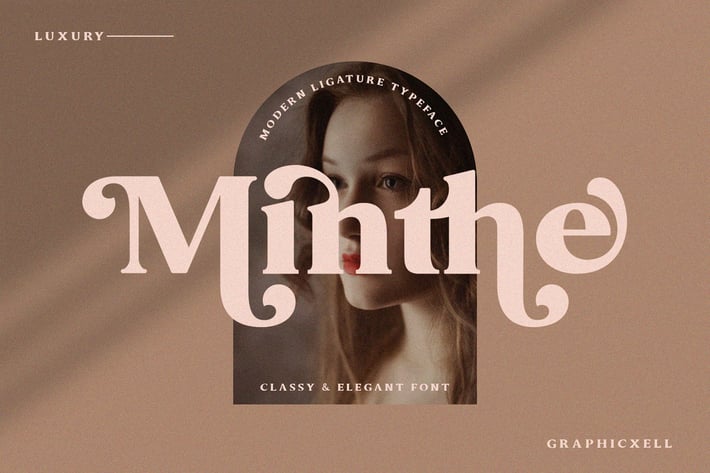
Minthe - Serif Font
Minthe Serif is a refined serif font that combines classic charm with modern style. Its clean lines and sharp details make it perfect for projects that need a touch of elegance and sophistication. Whether you use it for branding, editorial work, or packaging, Minthe Serif stands out by adding a polished and professional look.
Moreover, this font is designed to be highly readable. The clear letter shapes and balanced spacing make it easy to read in both large headlines and smaller body text. Additionally, Minthe Serif supports multiple languages, making it a great choice for global projects. Its timeless serif design fits both traditional and contemporary aesthetics.
In addition to its elegant appearance, Minthe Serif includes useful OpenType features. These features provide ligatures, stylistic alternates, and more, giving you flexibility when designing. Furthermore, Minthe Serif works equally well on digital screens and printed materials, ensuring your work looks great everywhere.
Key features include:
- Elegant serif font with sharp details
- Clear and readable letterforms
- Suitable for headlines and body text
- Multilingual support included
- OpenType features such as ligatures and alternates
- Optimized for both print and web use
Why choose Minthe Serif?
- Elegant design with classic serif style
- Clear and readable across all sizes
- Perfect for branding, editorial, and packaging
- Supports multiple languages for global use
- Optimized for print and digital platforms
- Includes OpenType features for design flexibility
- Fast loading on web with crisp display
In summary, Minthe Serif is a versatile and elegant font that enhances your projects with style and clarity.
Moreover, this font is designed to be highly readable. The clear letter shapes and balanced spacing make it easy to read in both large headlines and smaller body text. Additionally, Minthe Serif supports multiple languages, making it a great choice for global projects. Its timeless serif design fits both traditional and contemporary aesthetics.
In addition to its elegant appearance, Minthe Serif includes useful OpenType features. These features provide ligatures, stylistic alternates, and more, giving you flexibility when designing. Furthermore, Minthe Serif works equally well on digital screens and printed materials, ensuring your work looks great everywhere.
Key features include:
- Elegant serif font with sharp details
- Clear and readable letterforms
- Suitable for headlines and body text
- Multilingual support included
- OpenType features such as ligatures and alternates
- Optimized for both print and web use
Why choose Minthe Serif?
- Elegant design with classic serif style
- Clear and readable across all sizes
- Perfect for branding, editorial, and packaging
- Supports multiple languages for global use
- Optimized for print and digital platforms
- Includes OpenType features for design flexibility
- Fast loading on web with crisp display
In summary, Minthe Serif is a versatile and elegant font that enhances your projects with style and clarity.